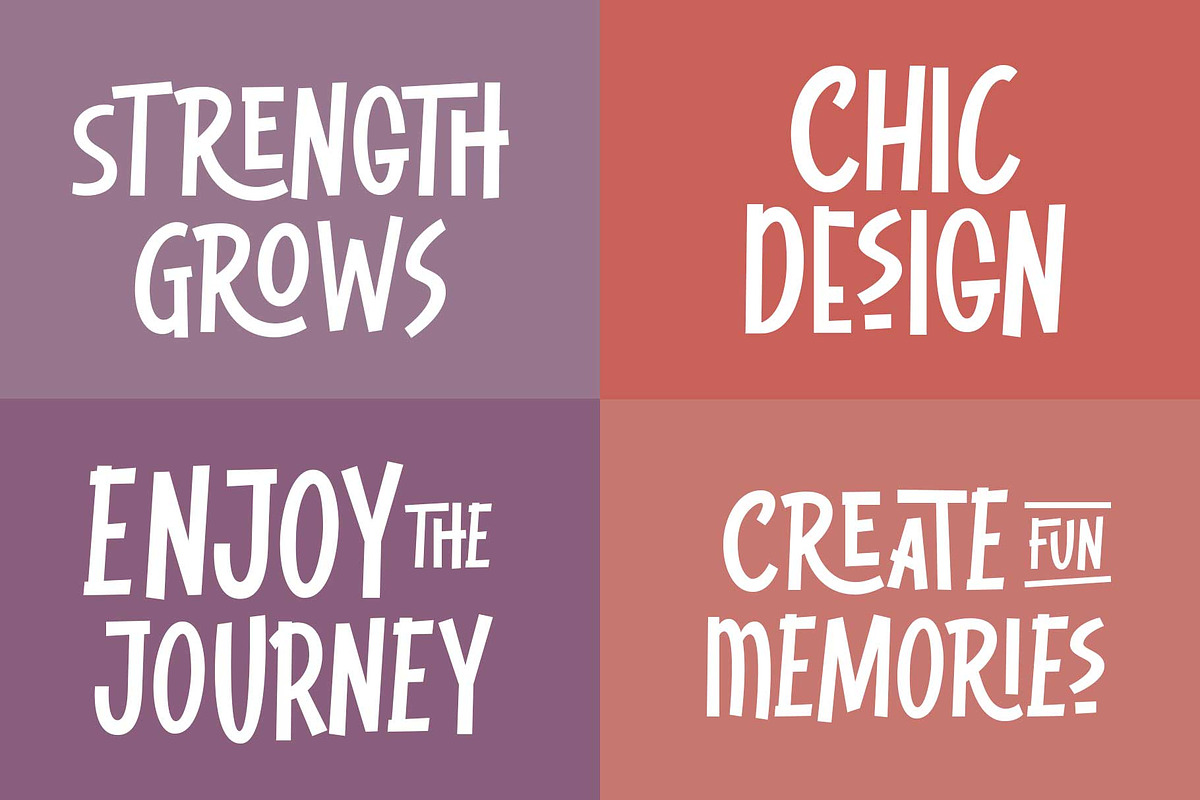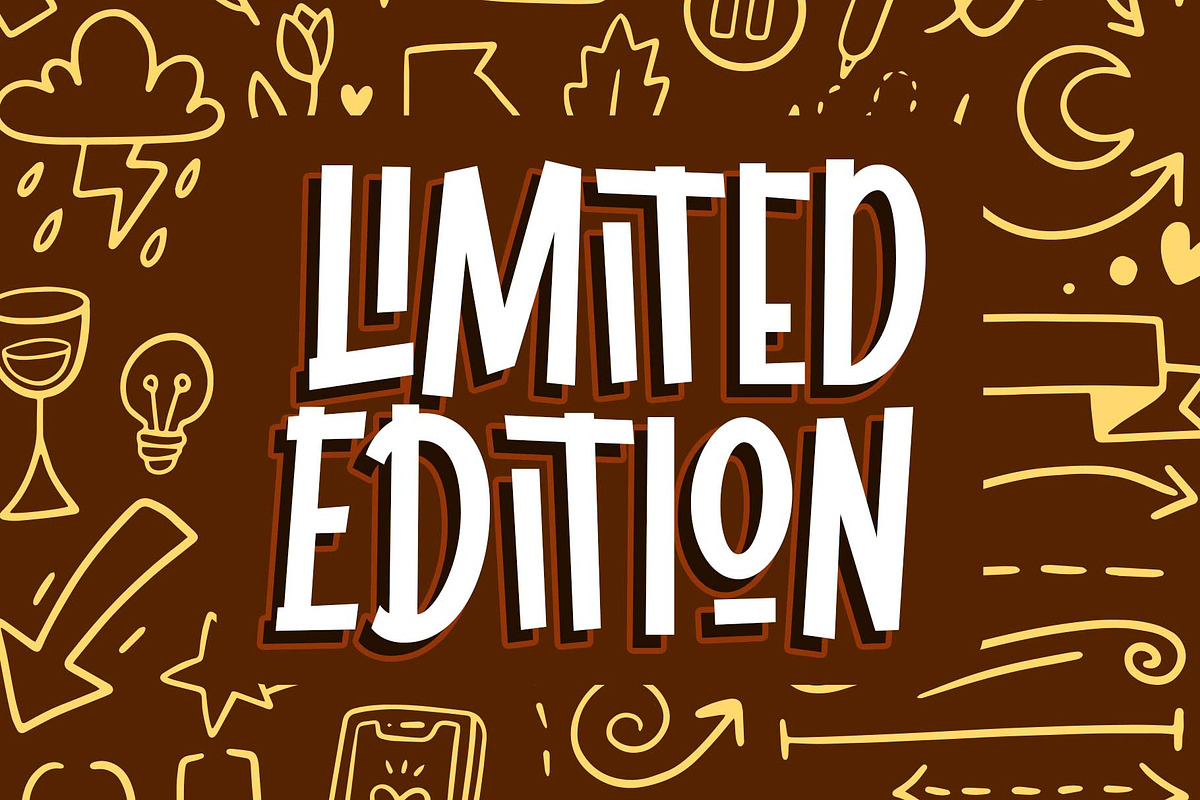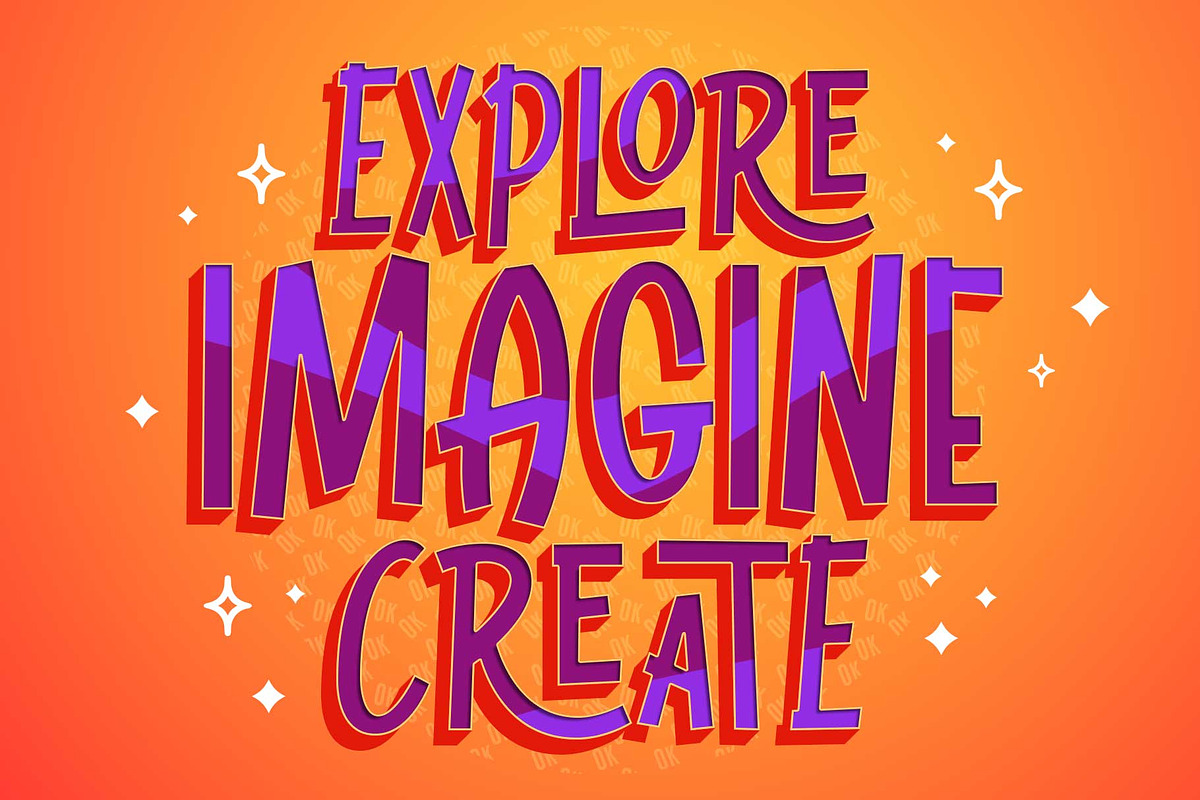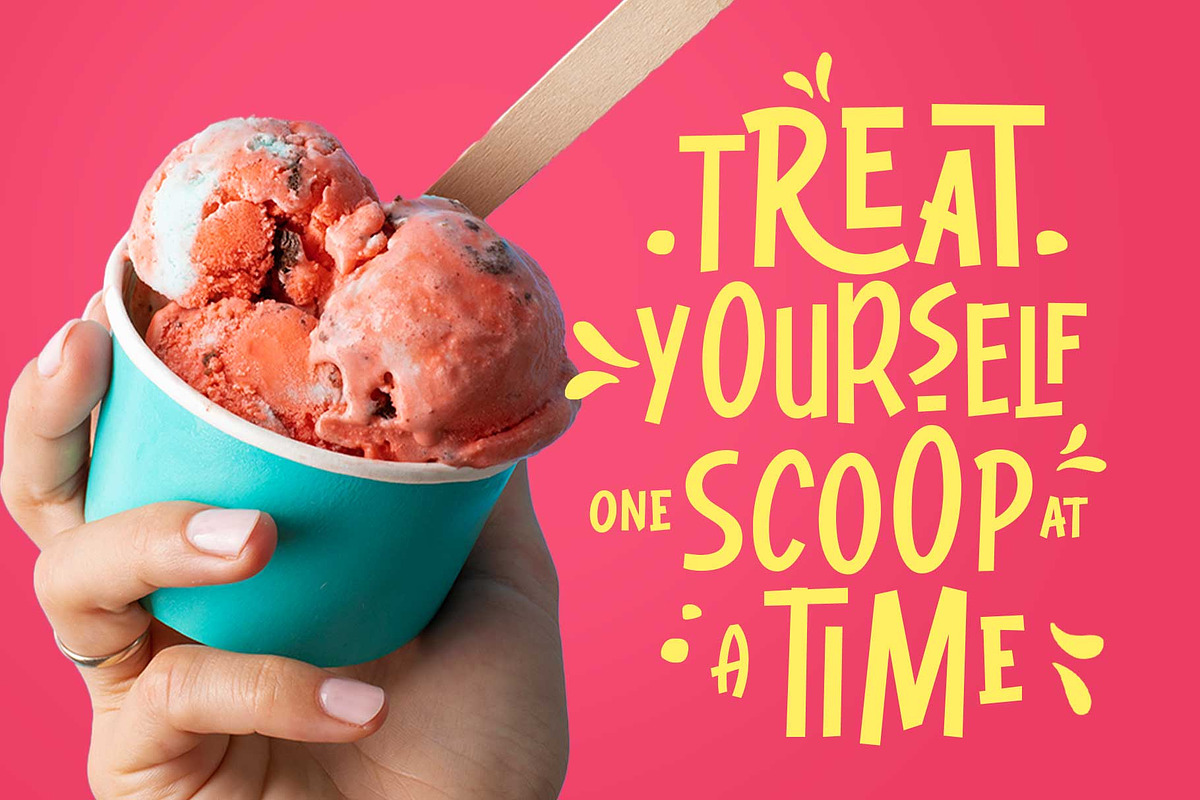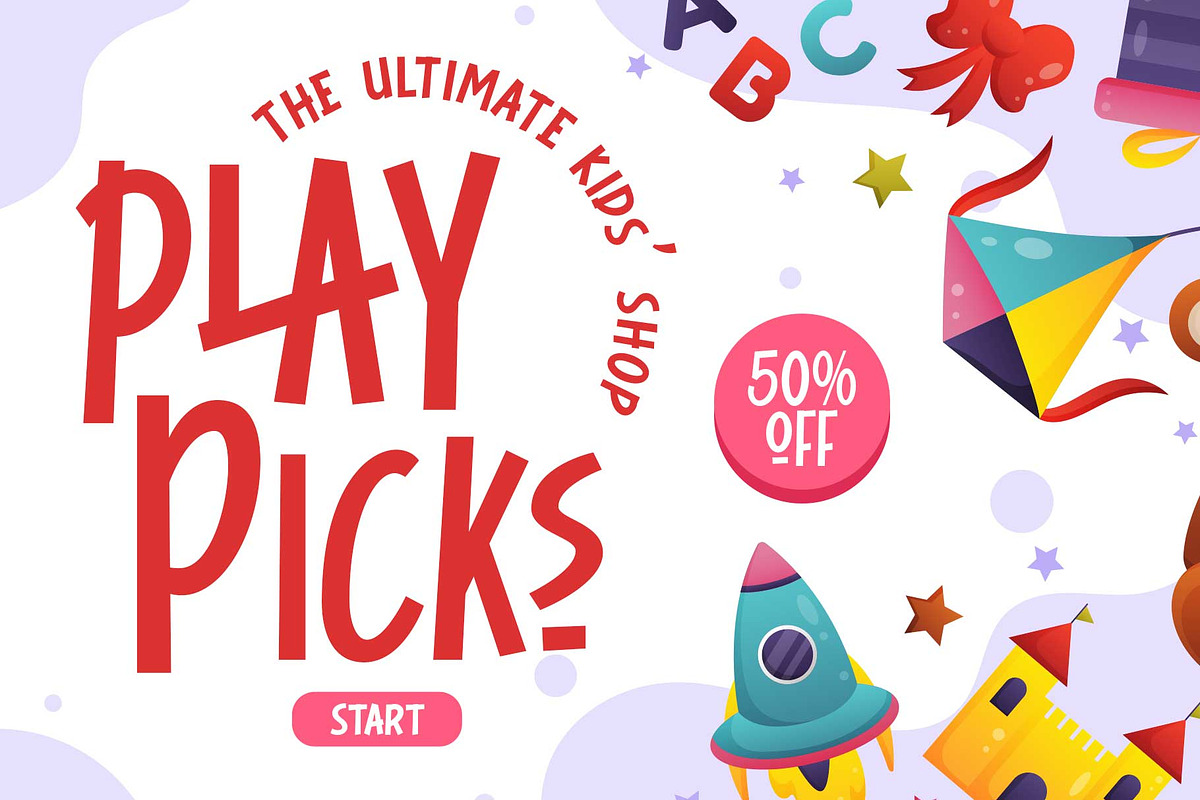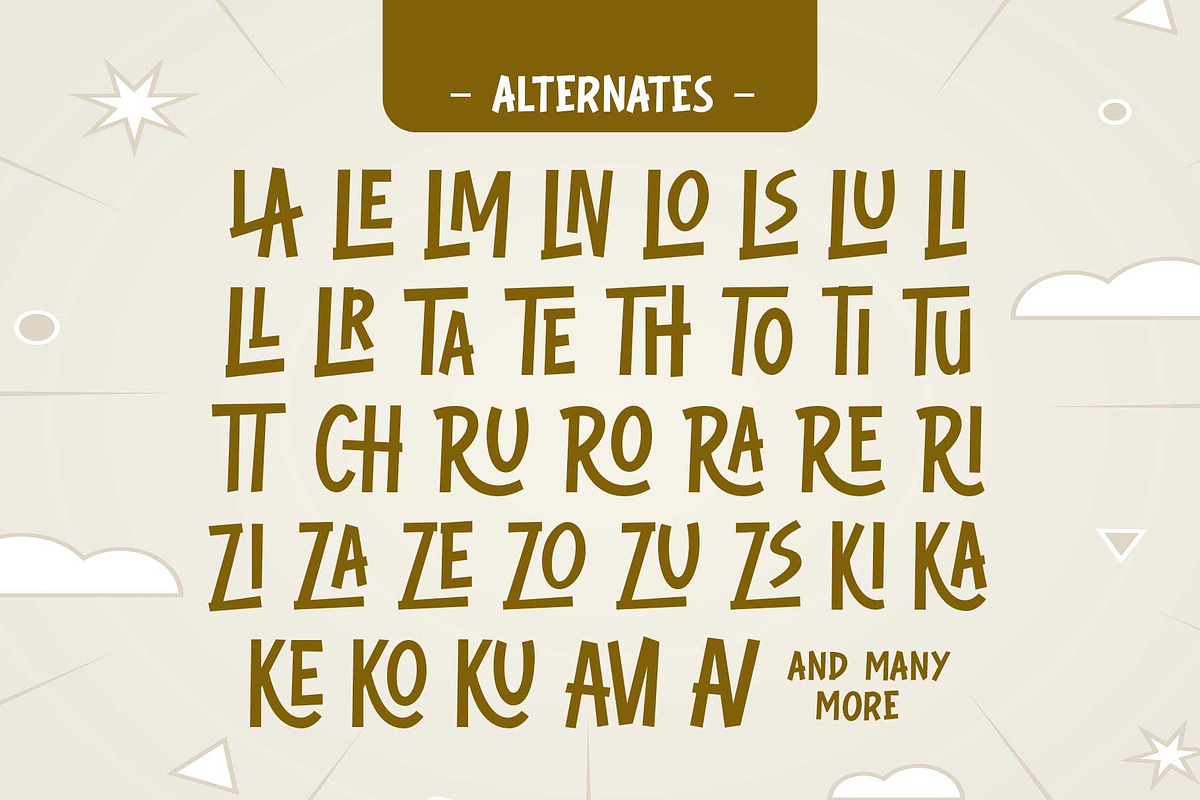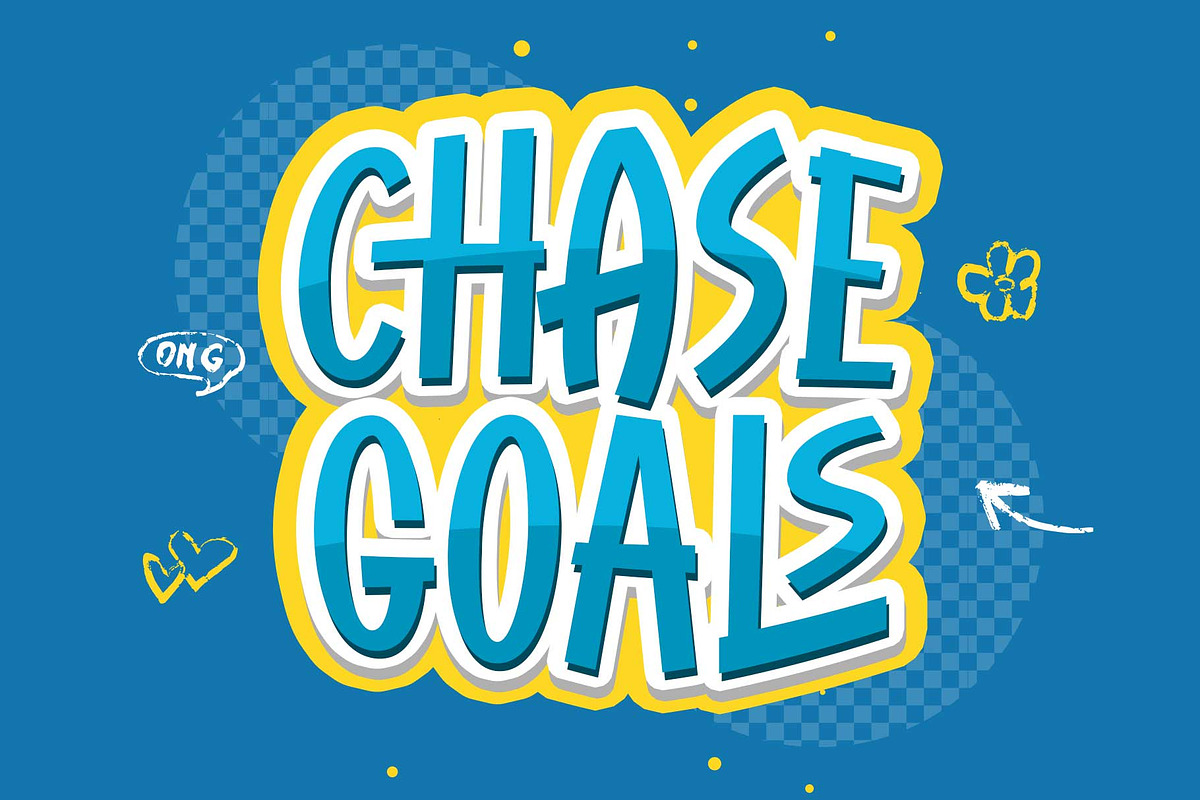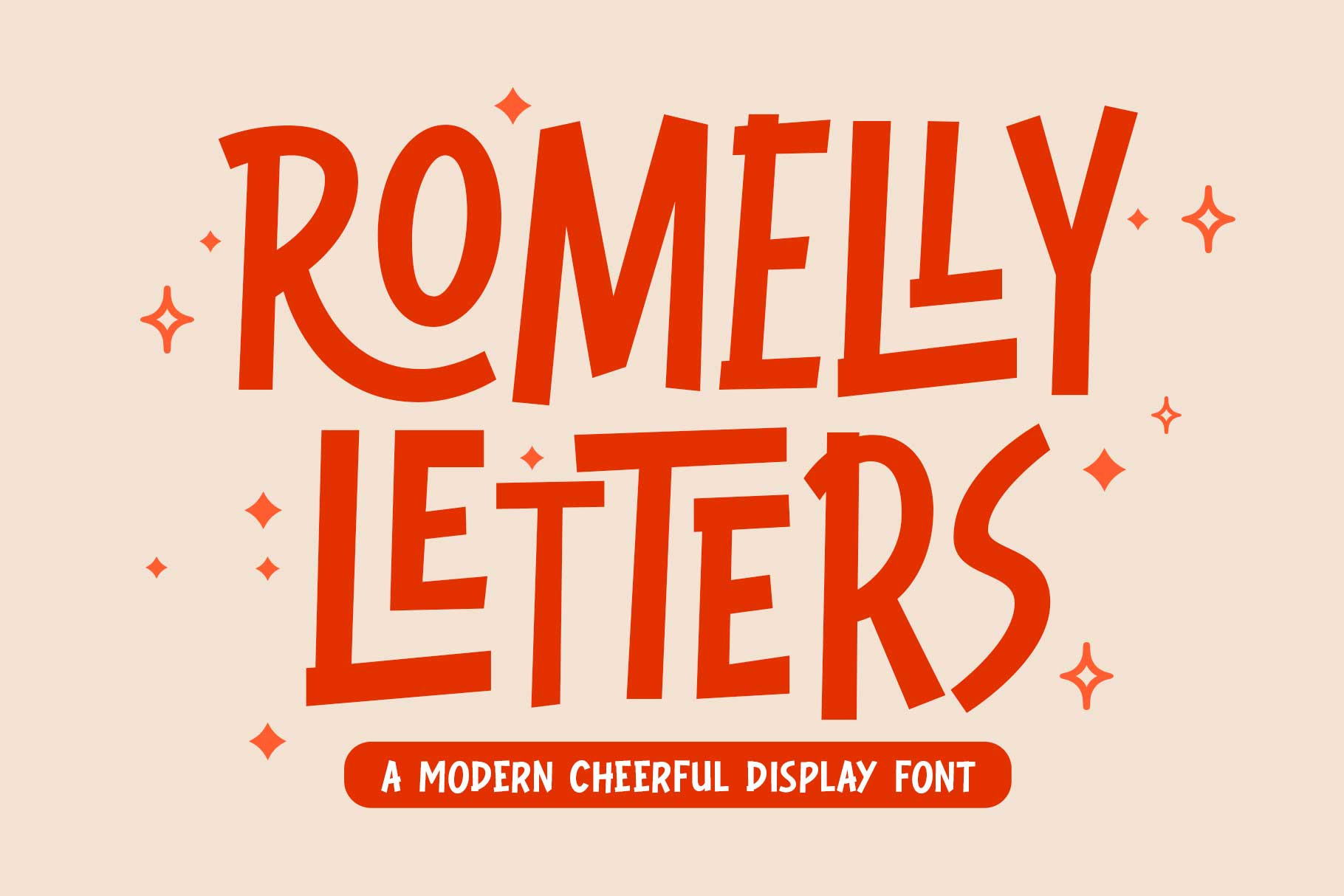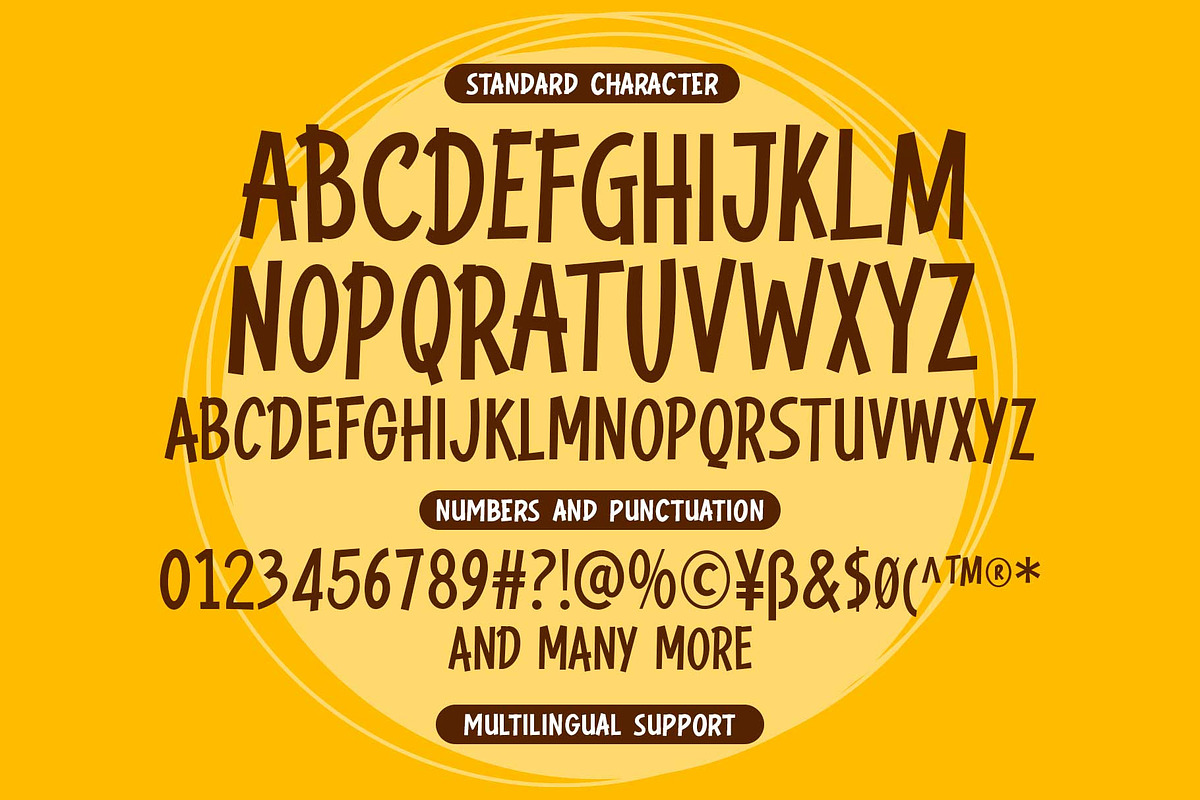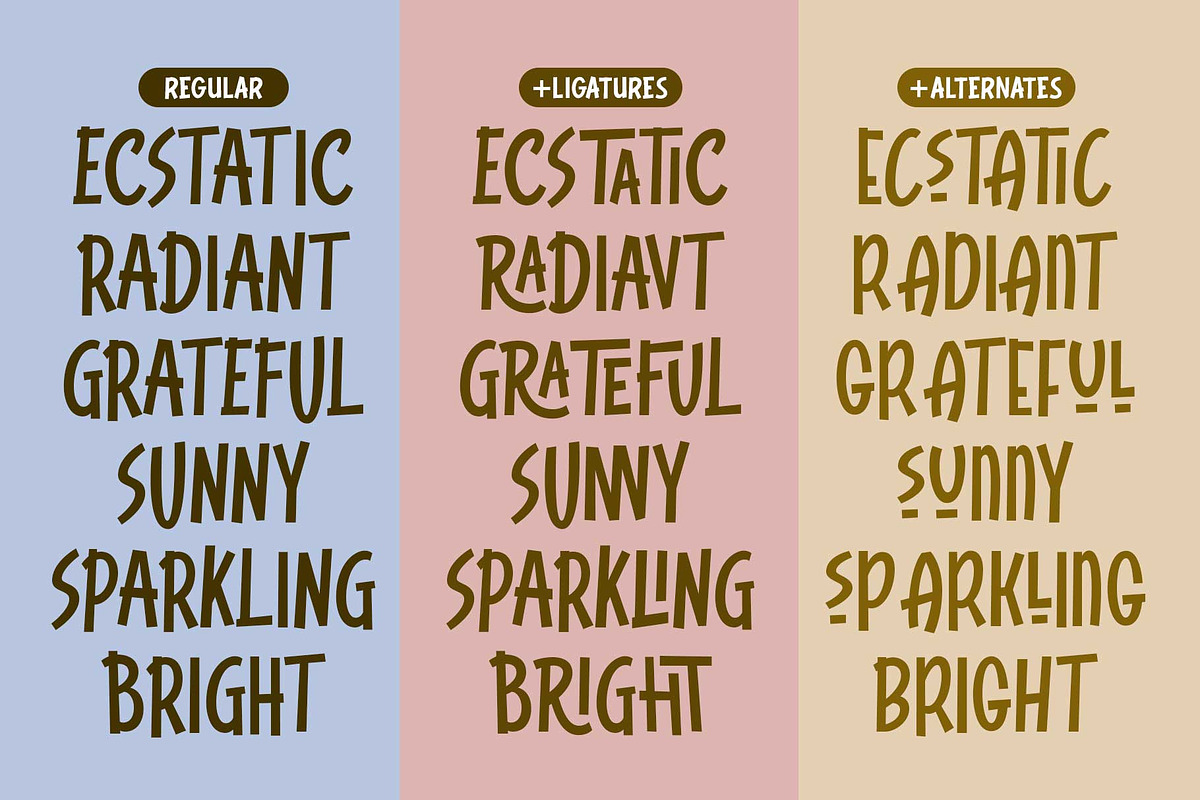
Romelly Letters - Playful Font
Spread cheer and joy to the world with Romelly Letters, a playful handwritten font featuring a variety of ligatures and stylistic alternates. Designed with a childlike charm, a slim and tall shape, this font exudes personality, making it perfect as a display font.
Ideal for charming designs like books, stickers, kids' apparel, packaging, labels, posters, toys, and so much more!
- Stylistic alternates